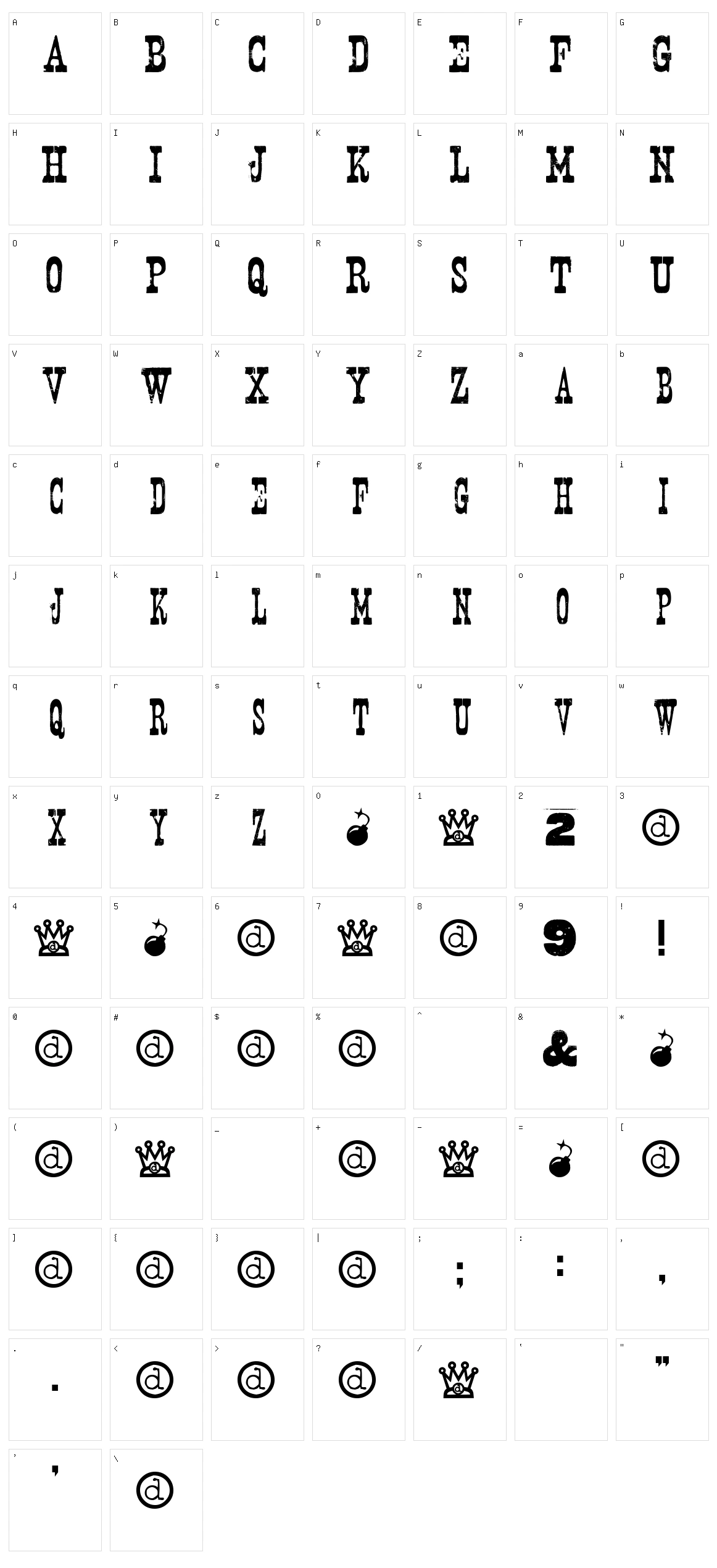
The free font Nashville is carefully designed by Disturbed Type, showcasing a thoughtful balance of creativity and usability and falls under the Western font style. When you download the ZIP file, it contains only 141.92 KB of font files, making it lightweight and quick to download. Please review the license details below to understand permitted usage and distribution rights. If license information is not available, we recommend using this font for personal projects only or contacting the author directly for commercial usage permissions.